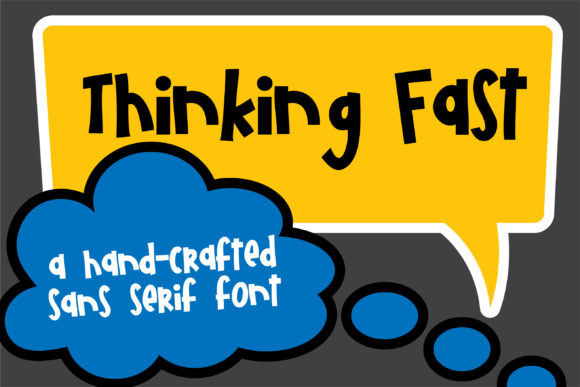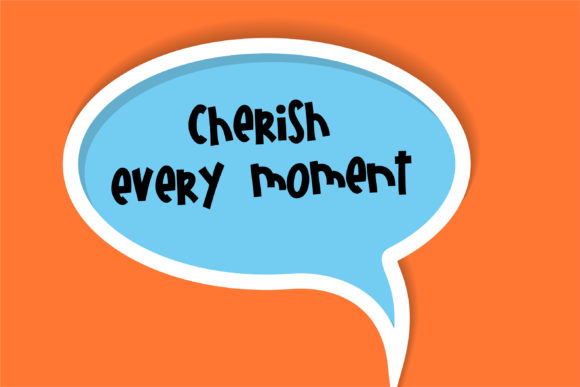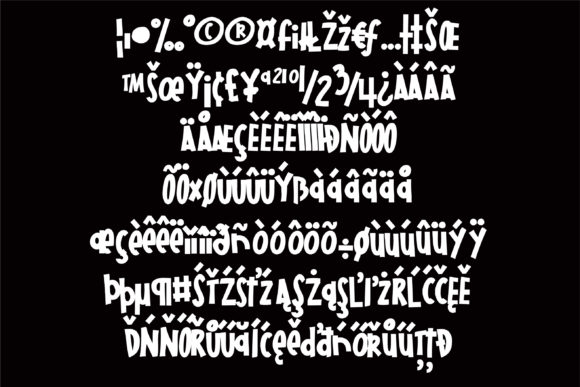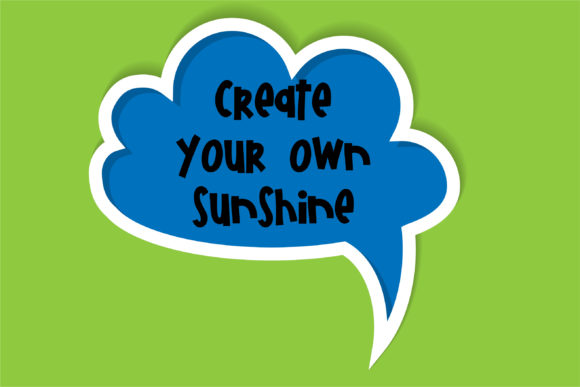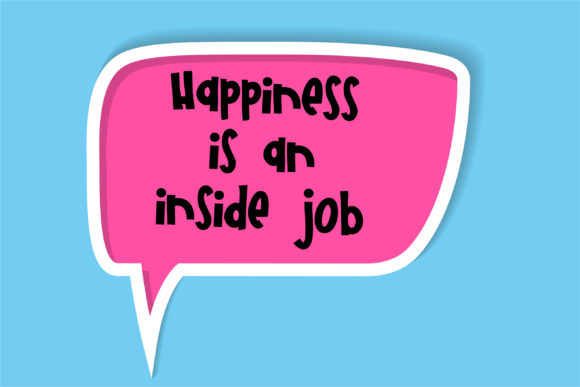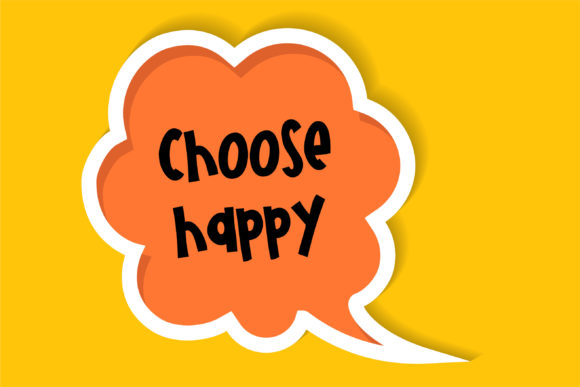
PN Thinking Fast Font
About PN Thinking Fast Font
Thinking Fast is a cute and quirky handwritten font. Add this font to your favorite ideas and notice how it makes them come alive!